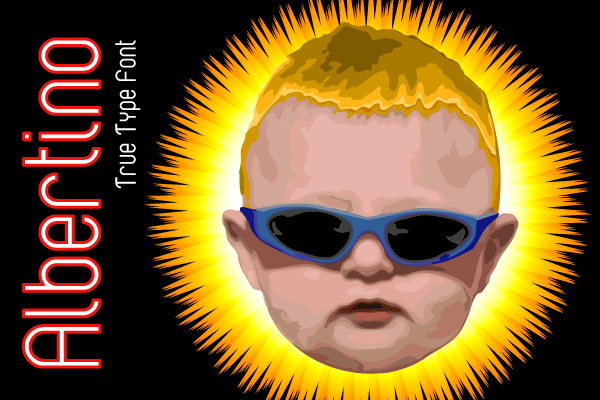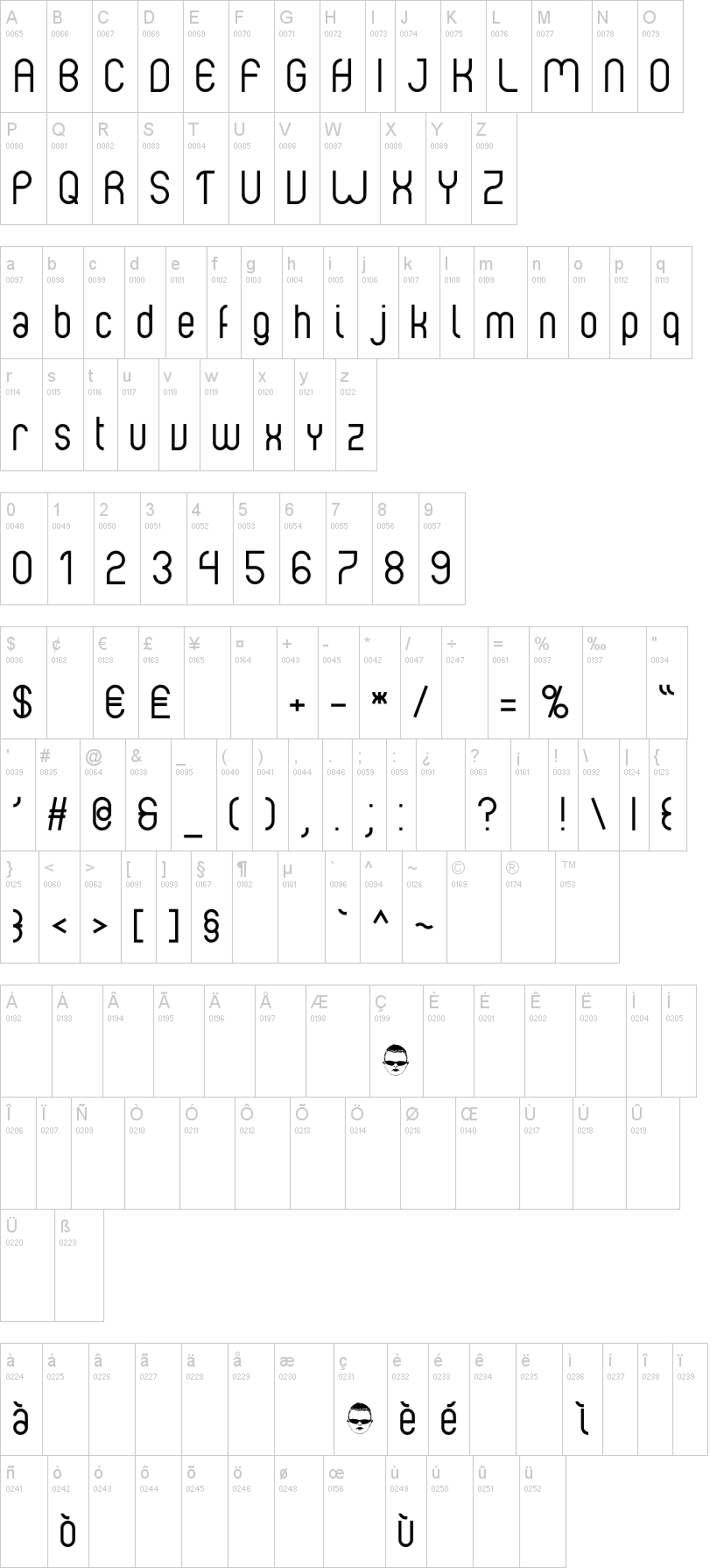
Шрифт Albertino
ALBERTINO Truetype Font
I made this font for my first-born son, Alberto.
[you can see Alberto pressing "ç" key, while using Albertino
font, of course]